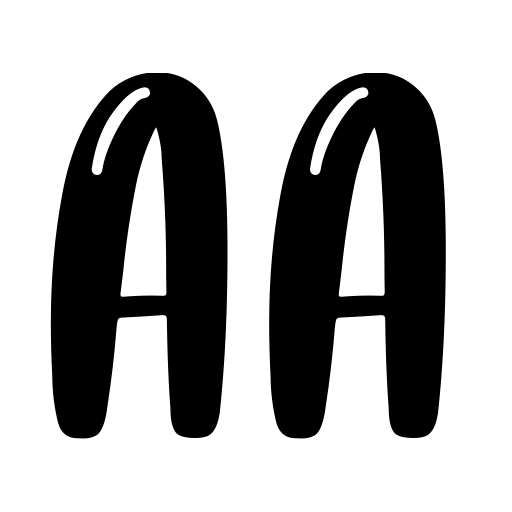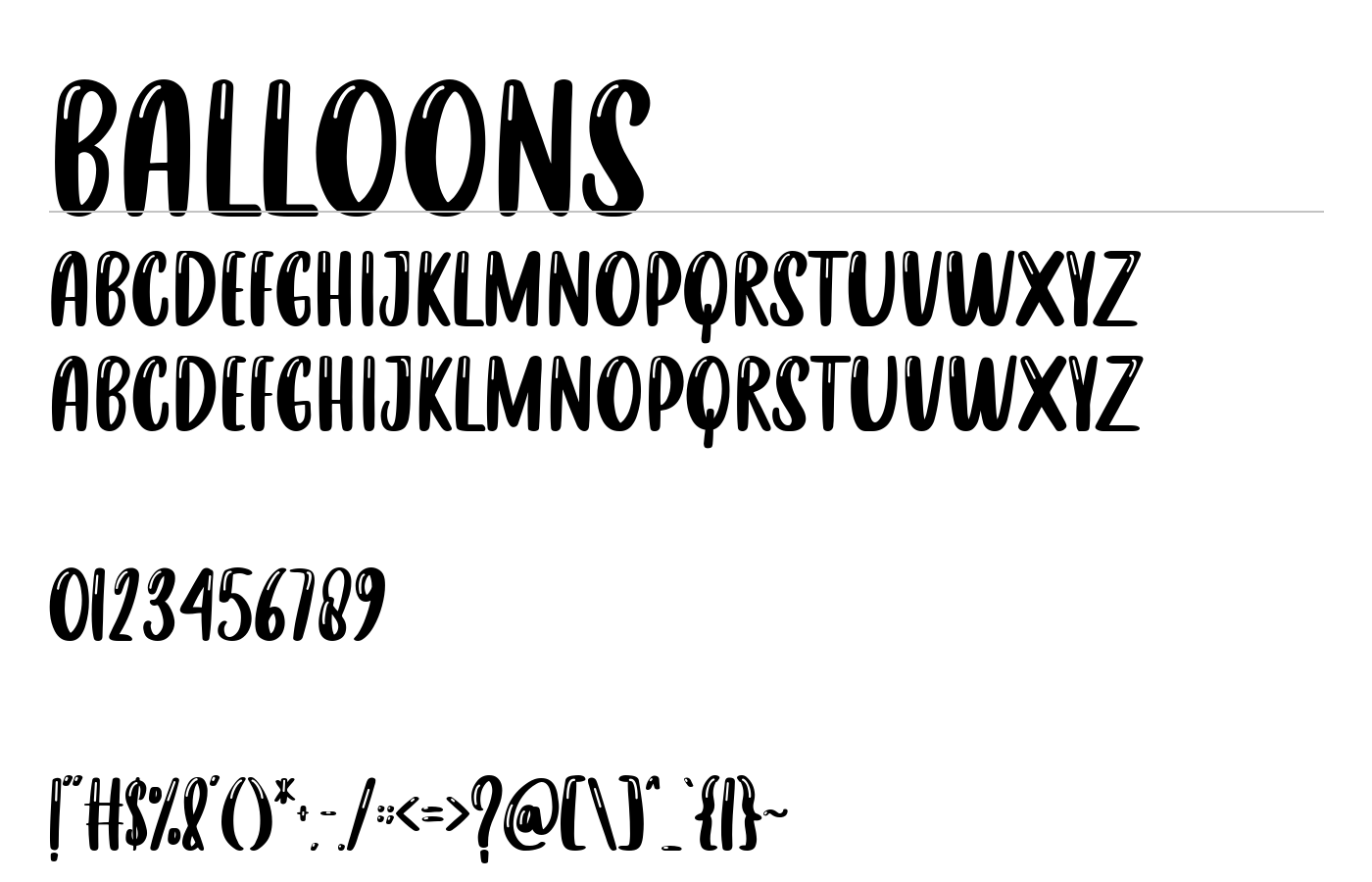
Balloons is a playful and bold sans serif font characterized by its rounded, balloon-like letterforms that give a fun and friendly vibe. Its tall, narrow structure with smooth curves and consistent stroke weight makes it ideal for informal, eye-catching designs such as party invitations, children’s products, and casual branding. This font works best in headlines or display uses where its lively personality can shine and grab attention.
balloons Font